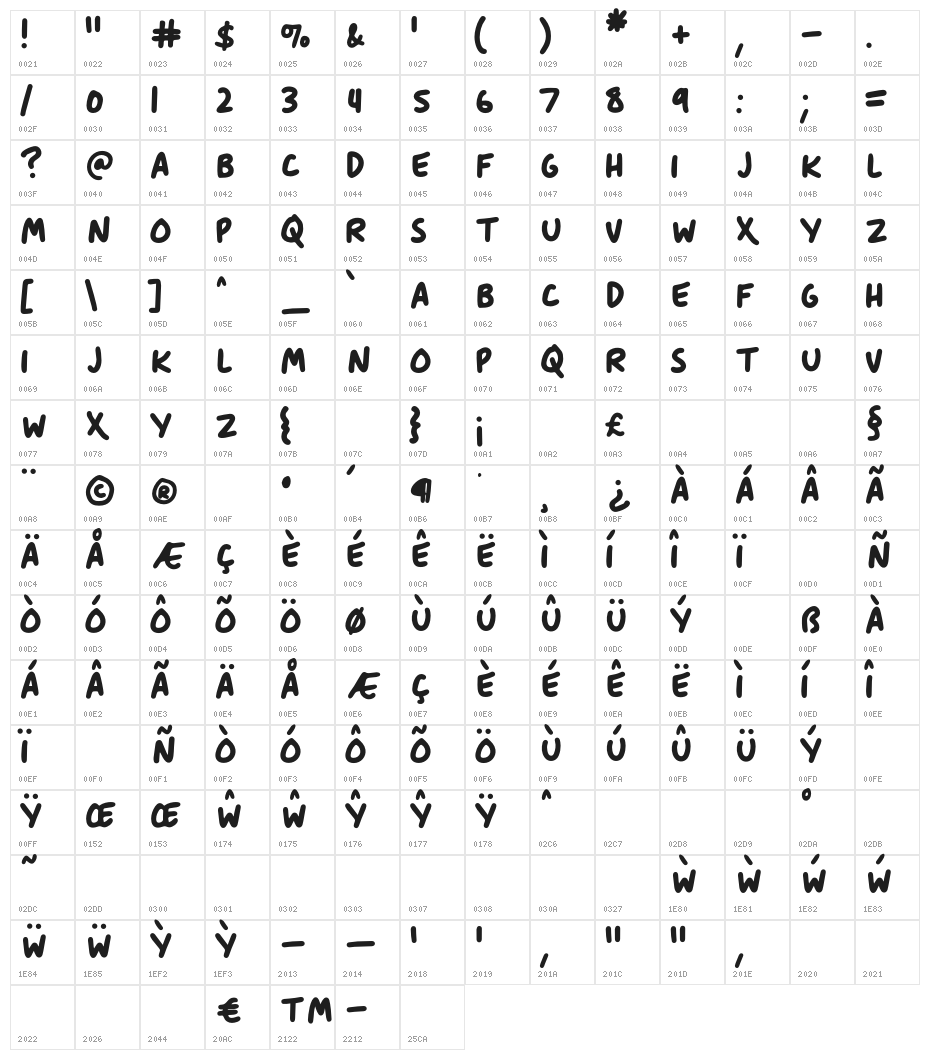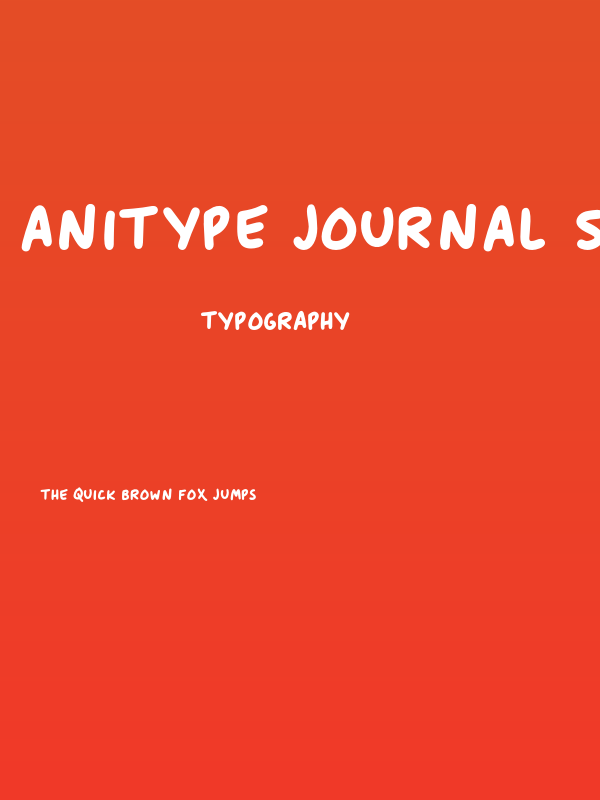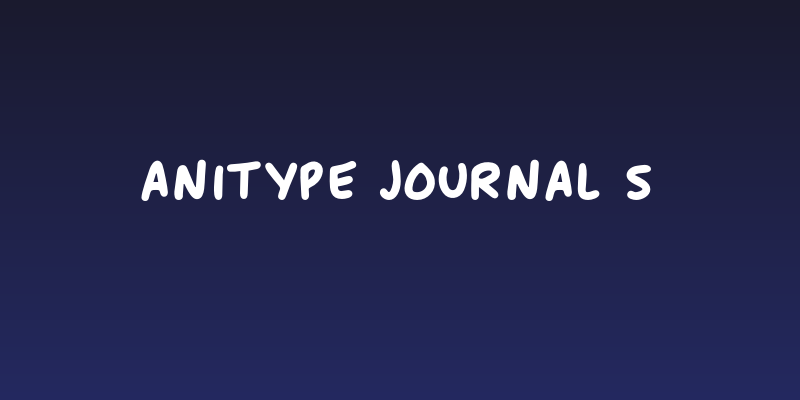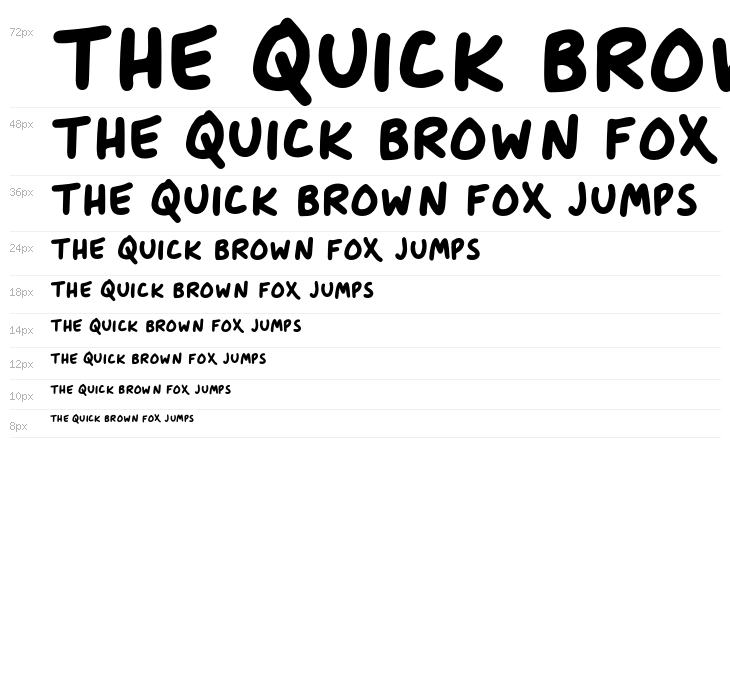
Anitype Journal 5 Font
Anitype Journal 5 Description
This playful and bold font features rounded, thick strokes that give it a friendly and approachable appearance. The characters are slightly irregular, adding a hand-drawn feel that enhances its casual and informal style. The uppercase letters are consistent in height, while the lowercase letters maintain a uniform baseline, contributing to its readability. The numbers and special characters follow the same design principles, ensuring cohesion across all elements. This font's unique personality makes it suitable for projects that require a touch of whimsy and creativity.
| Proposed Projects | Ideal for children's books, playful branding, casual invitations, and creative posters. |